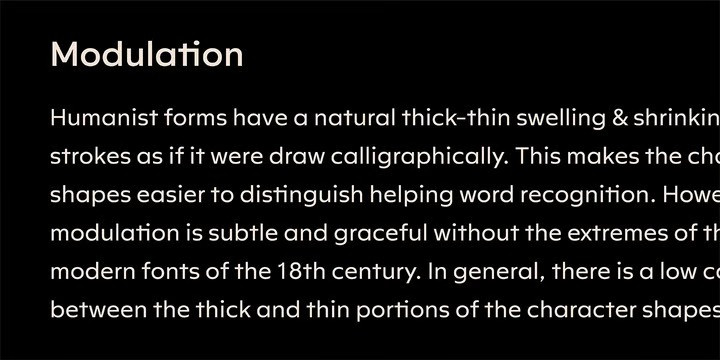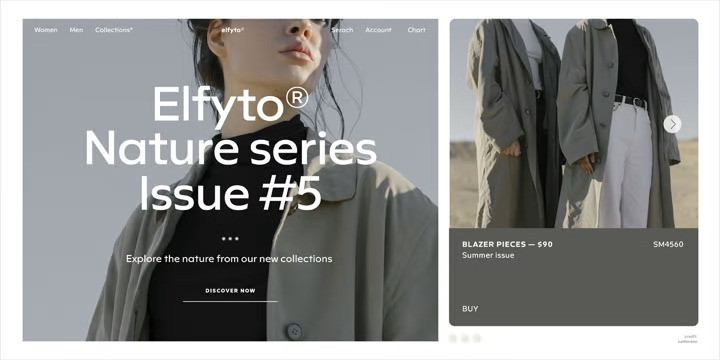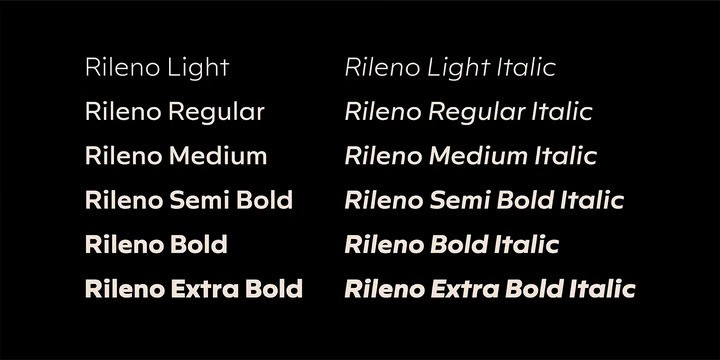
Rileno Sans Font Family
Rileno Sans Font is a streamlined, updated take on midcentury type design. It is constructed in a geometric manner and inspired by the constructivist typefaces of the 1920s with a humanistic quality. It comes in 6 weights, 6 uprights and their matching italics. Rileno Sans is equipped with opentype features like Alternate charates, Fractions, Monospace Numbers, Superscript/subscript, Arrow, Roman Numbers, Ligatures and More.